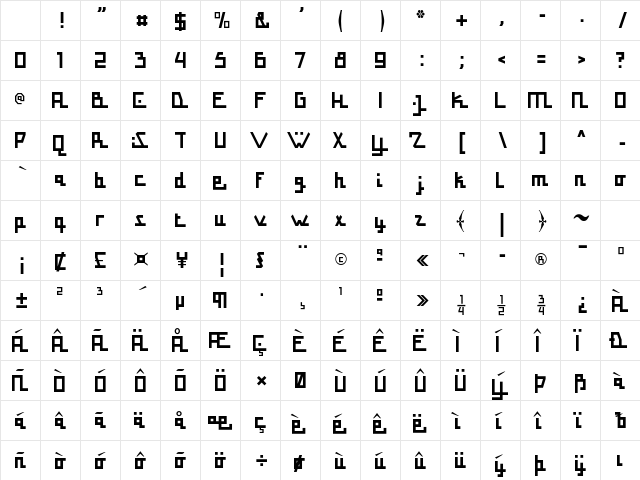
Complete Al Kufic DEMO Regular glyph index. Displaying only characters natively supported by Al Kufic DEMO Regular font.
Al Kufic DEMO is a composed and adaptable typeface that performs quietly and consistently across a wide range of design contexts.